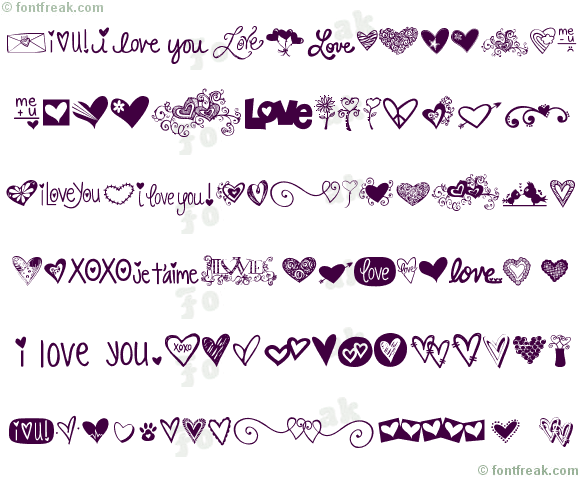
KG Heart Doodles
About KG Heart Doodles
KG Heart Doodles is a charming decorative font designed by Kimberly Geswein, categorized as a dingbat typeface. This unique font features an array of whimsical heart designs and playful doodles that exude a sense of warmth and affection. With its consistent stroke weight and minimal contrast, the font maintains an approachable and friendly vibe, making it perfect for various creative applications. The spacing between the characters is well-balanced, ensuring that each doodle stands out while still creating a cohesive visual flow.
This font is particularly well-suited for a variety of use cases, including wedding invitations where it can add a romantic touch, greeting cards that convey heartfelt messages, social media graphics to enhance engagement, and even children’s book illustrations where playful imagery is essential. Additionally, small business owners can utilize KG Heart Doodles in marketing materials, such as flyers or promotional banners, to capture the attention of their audience with its lively designs.
What sets the KG Heart Doodles font apart is its ability to evoke emotion through simple yet effective illustrations. Each heart doodle tells a story, making it an ideal choice for projects that aim to connect with an audience on a personal level. For those looking to enhance their creative designs, the KG Heart Doodles font free download is an excellent resource for adding a touch of love and charm to any project.